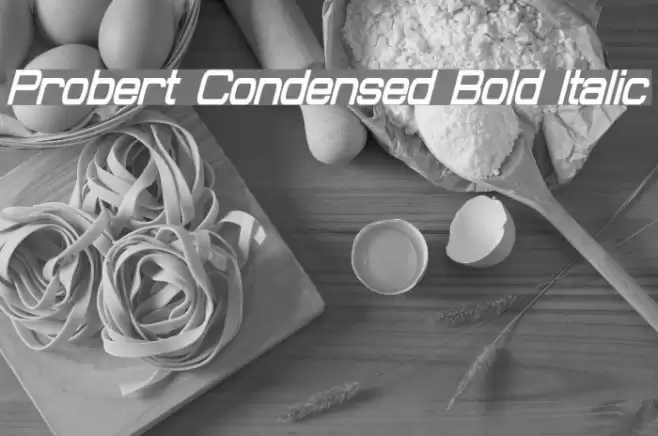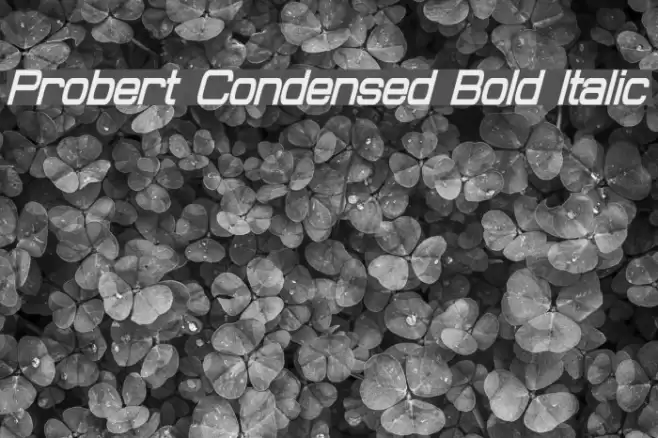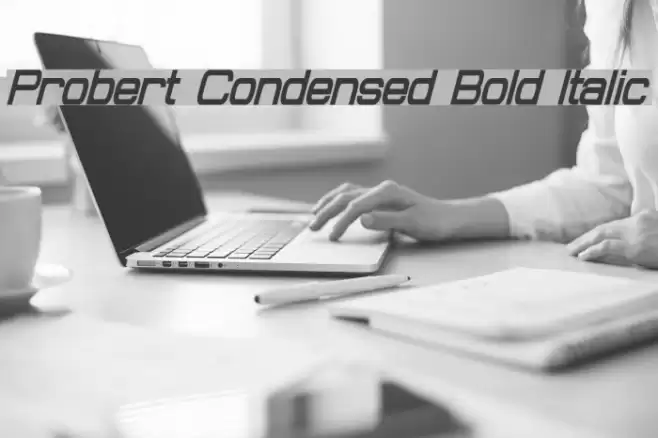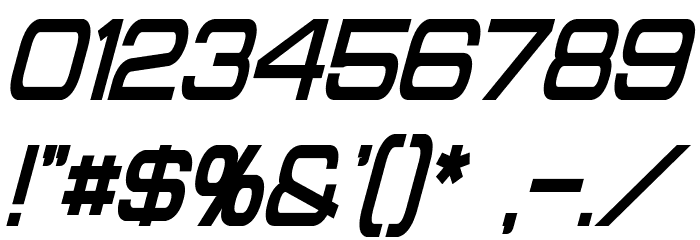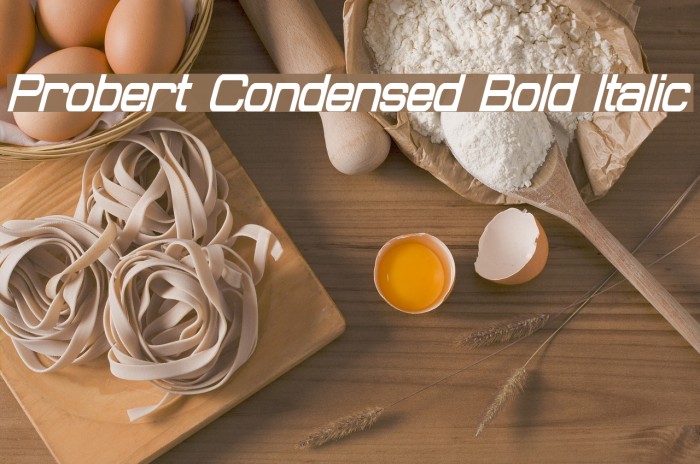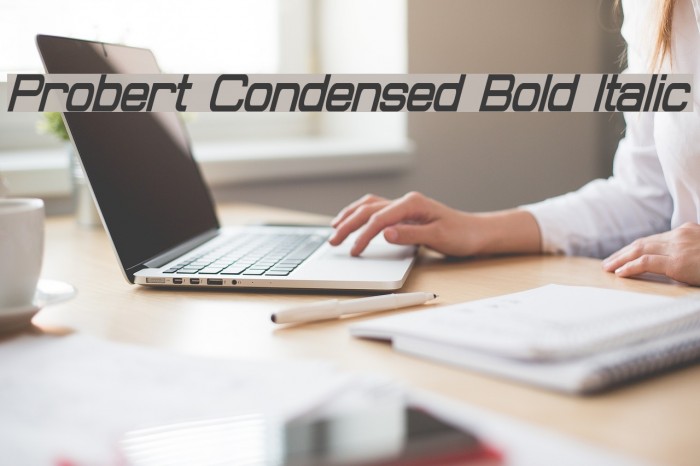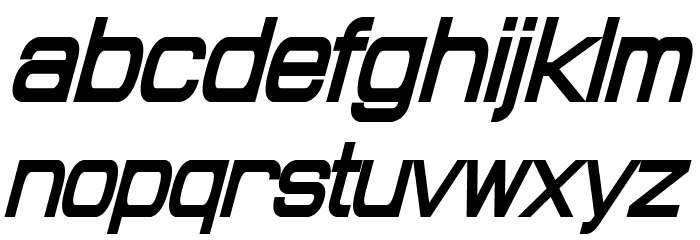
Probert Condensed Bold Italic Font
Probert Condensed Bold Italic Description
This font exhibits a bold and italicized style with a condensed width, giving it a sleek and modern appearance. The characters are slightly slanted, enhancing the dynamic and forward-moving aesthetic. The bold weight ensures strong visibility and impact, making it suitable for attention-grabbing headlines or titles. The condensed nature of the font allows for efficient use of space, making it ideal for designs where space is limited but impact is necessary. The overall style is clean and contemporary, with a consistent stroke width that provides a uniform look across all characters. The spacing between characters is tight, which contributes to its compact and efficient design.
A bold, italic, and condensed font with a modern and sleek appearance from Uncategorized fonts.
- Proposed Projects: Ideal for headlines, posters, branding materials, and any project requiring a modern and impactful typeface.
- Character Spacing: Tight